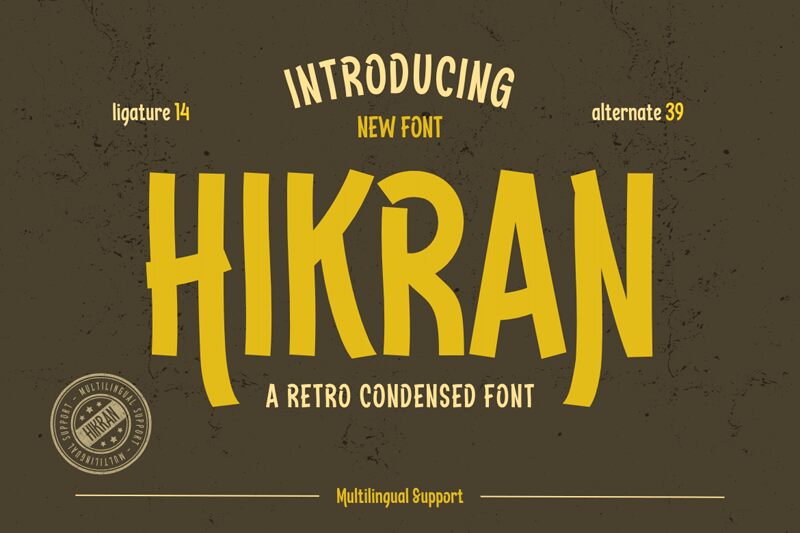
Hikran, a bold and captivating display font crafted by Twinletter, exudes a striking visual presence. With its condensed width and commanding letterforms, this font commands attention, effortlessly evoking a sense of strength and confidence. The sharp, angular strokes and distinct character shapes contribute to a bold, contemporary aesthetic that is sure to make a lasting impression.
Hikran's versatility allows it to shine in a variety of design contexts, from eye-catching headlines and impactful logos to dynamic branding and editorial layouts. Its condensed form lends itself well to space-constrained applications, making it an excellent choice for projects that require a bold, attention-grabbing typographic treatment.